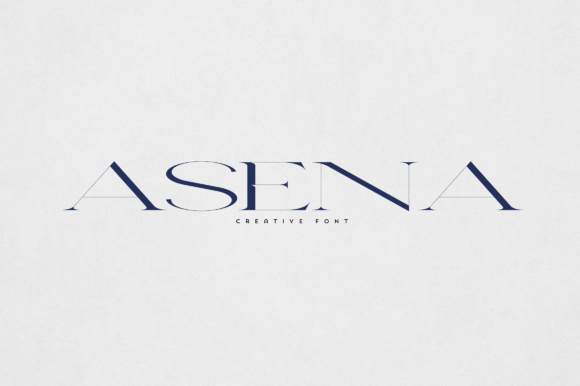
The Magic of Typography: Unveiling the Asena Font
Have you ever been scrolling through your social media feed, and a beautifully designed logo or advertisement catches your eye? Maybe it’s the way the text seems to dance across the screen, or the way the letters seem to shimmer in the light. Whatever it is, it’s clear that great typography can make all the difference in capturing our attention and leaving a lasting impression. And that’s exactly what the Asena Font is designed to do – elevate your typography game and take your designs to the next level.
The Asena Font is an elegant and versatile typeface that’s perfect for any branding project, from logos and product packaging to magazine headers and home- ware designs. With its unique blend of sophistication and playfulness, this font is sure to add a touch of magic to any design.
Key Features of Asena Font
- Unique Characteristics: The font features a unique blend of traditional and modern design elements, with intricate details and subtle nuances that set it apart from other fonts in its class.
- Font Weight: The font is available in various weights, including light, regular, bold, and extra bold, allowing designers to achieve a range of visual effects and emphasis in their designs.
Asena Font Review
Overall, I think the Asena Font has some great qualities, but it also has some areas for improvement. Here are my thoughts:
- Unique aesthetic: The Asena Font has a distinctive, elegant feel that sets it apart from more generic fonts.
- Good legibility: The font is clear and easy to read, even at smaller sizes.
- Customizability: The font comes with various weights and styles, making it suitable for a range of applications.
- Limited language support: The font doesn’t support as many languages as some other fonts, which might be a problem for multilingual projects.
- Some letterforms are a bit awkward: Certain letters, like the ‘k’ and ‘q’, can look a bit strange in certain contexts.
- No italic or bold-italic styles: While the font comes with bold and italic styles, it’s missing bold-italic variants, which can be a problem for certain design applications.
Overall, I think the Asena Font is a solid choice for projects where you want a unique, elegant feel. However, it’s not without its limitations, and you may need to do some tweaking to get the most out of it.
Tips for Getting the Most Out of Asena Font
Use Asena Font to add a touch of elegance and sophistication to your designs.
Experiment with different font sizes and colors to achieve a unique look.
Combine Asena Font with other fonts to create a visually appealing typography.
Use Asena Font for:
Business cards and brochures
Magazine and newspaper headlines